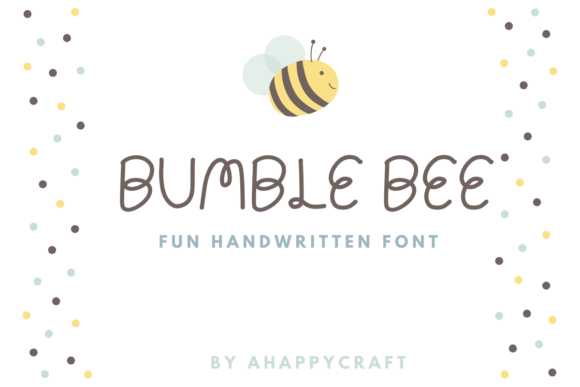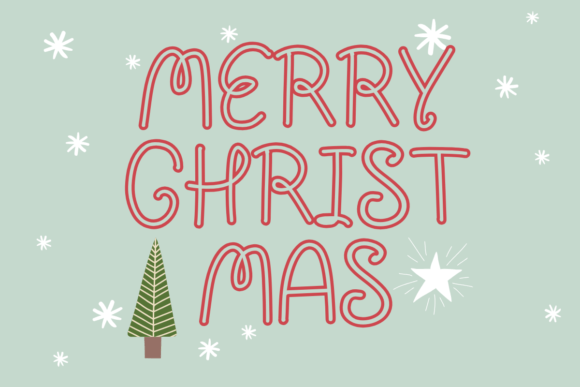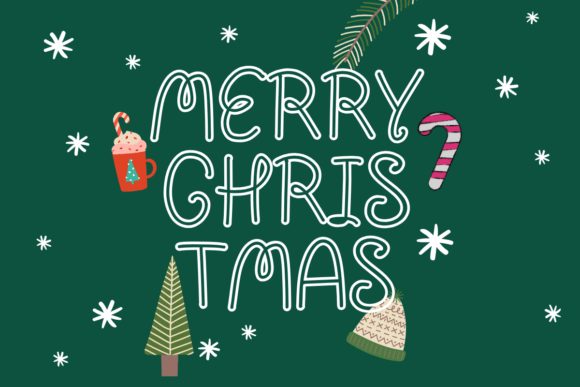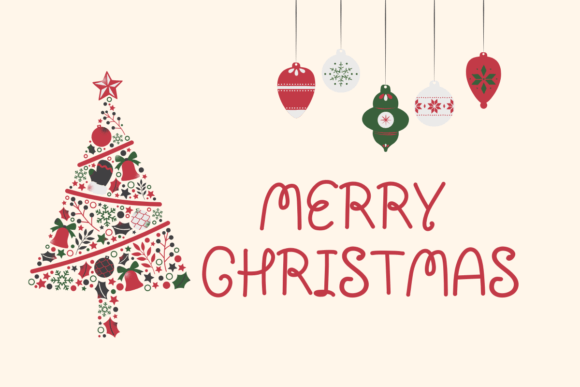
Bumble Bee Font: Cute Handwritten Font for Cricut & DIY Projects
About the Bumble Bee Font
Get ready to be inspired by Bumble Bee Font, a fresh and dynamic typeface for modern creators. Bumble Bee is a lovely and timeless handwritten font. It is the best choice for creating eye catching logos, branding and quotes. Every letter has a unique and beautiful touch, which will make your design come alive!
Bumble Bee excels in applications requiring a touch of handcrafted charm, such as logos, short headlines, and social media graphics. Its whimsical nature makes it ideal for brands targeting a younger demographic or those promoting products with a playful, approachable feel. However, its handwritten style is less suitable for large blocks of text or body copy; readability suffers in extended use.
Consider pairing Bumble Bee with a clean sans-serif like Open Sans for a balanced contrast, providing legibility for supporting text. Alternatively, a classic serif like Garamond adds a touch of sophistication, grounding the playful nature of Bumble Bee. Avoid pairing it with other highly decorative scripts, as this would create visual clutter.
The font’s core personality is friendly and approachable, yet retains a touch of elegance. It’s best suited for brands focused on creativity, artistry, or artisanal goods, lending a personal and handcrafted feel to their visual identity.